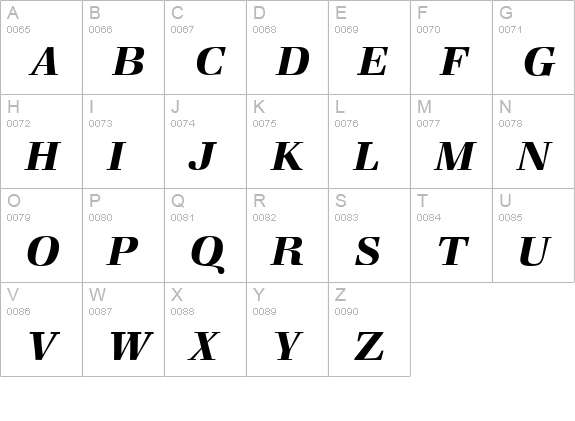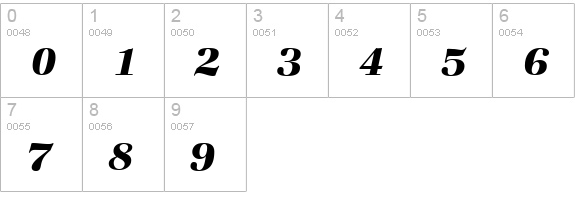
ZabriskieBook-BoldItalic Font Details
ZabriskieBook-BoldItalic font is a striking and elegant typeface that exudes a sense of sophistication and modernity. Its bold and italic design adds a touch of drama and flair to any project or design it is used in. With its clean lines and distinct curves, ZabriskieBook-BoldItalic is perfect for creating eye-catching headlines, titles, and logos. The free ZabriskieBook-BoldItalic font is a versatile choice for both print and digital applications. Whether you're designing a poster, website, or branding materials, this font will make a statement and elevate your work to the next level. Its bold and italic variations offer flexibility and creativity, allowing you to experiment with different styles and layouts. ZabriskieBook-BoldItalic is freely available to download at FontsMarket.com, making it easily accessible to designers, creatives, and anyone looking to add a touch of sophistication to their projects. Don't miss out on this fantastic font that combines style, elegance, and versatility in one beautiful package. Download ZabriskieBook-BoldItalic today and take your designs to new heights.